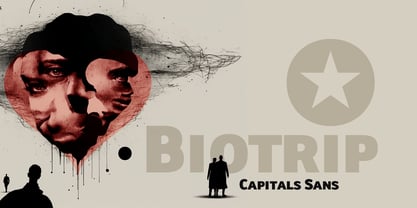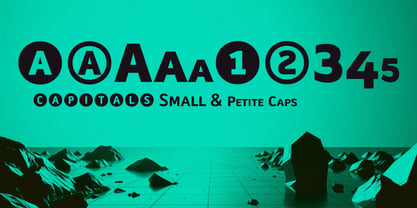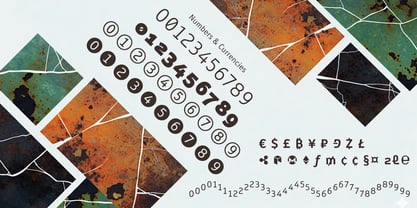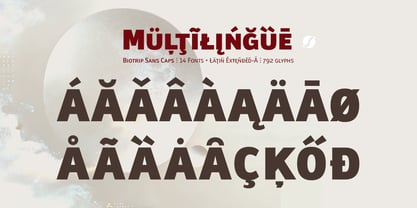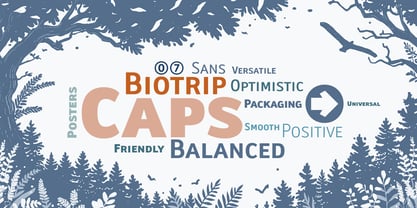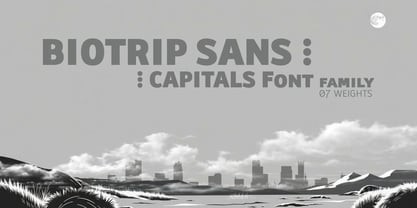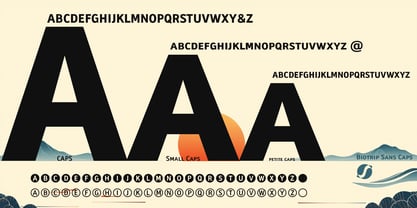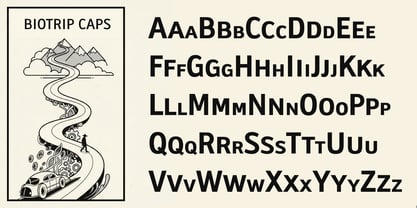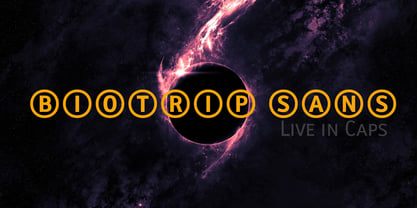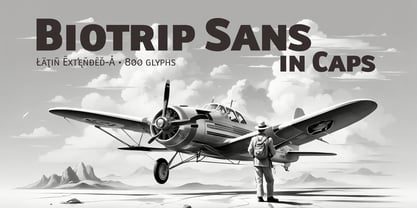
Biotrip Sans Caps
by deFharo
The Biotrip Sans Caps Font Family was designed by Fernando Haro and published by deFharo. Biotrip Sans Caps contains 7 styles and family package options. More about this family
Biotrip Sans Caps is a multipurpose typeface, refined down to the last detail. It includes seven weights—Light, Regular, Medium, Semi Bold, Bold, Extra Bold, & Black—that allow for the creation of solid, adaptable, and expressive visual systems. Each variant has been carefully designed to preserve the humanist essence of Biotrip Sans, with the authority of capital letters. In Biotrip Sans Caps, I explore the tension between control and gesture, between rational form and human touch. It is this warmth that breaks the coldness of the pixel and establishes a real, almost tactile, connection with the reader. Its construction is organic and vibrant, with flowing curves. The forms are open and welcoming, designed to offer excellent legibility in small sizes, but also to support large headlines with character, balance, and presence.
Designers: Fernando Haro
Foundry: deFharo